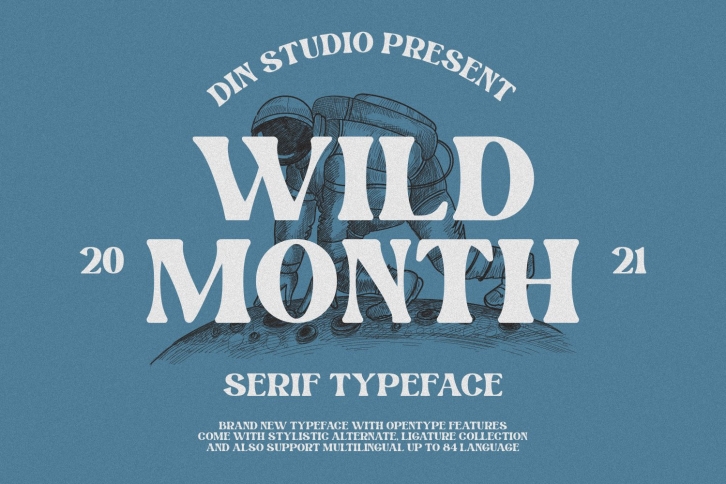
Wild Month-Serif is a great font that was designed by Din Studio. Imagine the amount of combinations you can create using this font! The archive is 15.78 MB and it was released on July 9, 2021. Wild Month-Serif looks beautiful on wedding invitations, greeting cards, logos, posters, labels, t-shirt designs, logos, business cards and is perfect for use in ink or watercolor works, fashion, magazines, packaging and food menus, children's books and more!